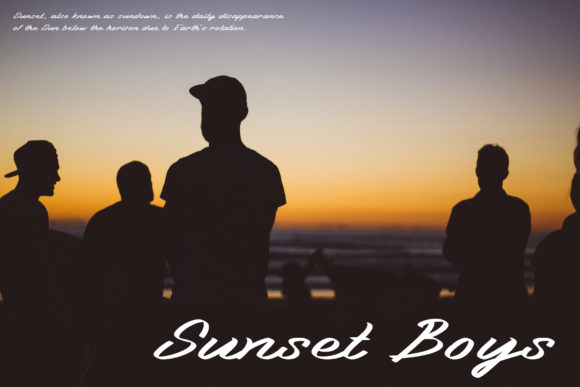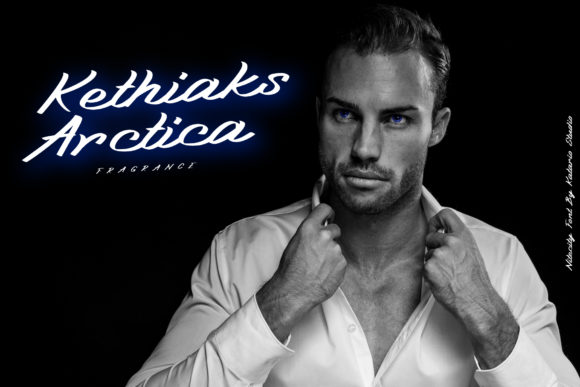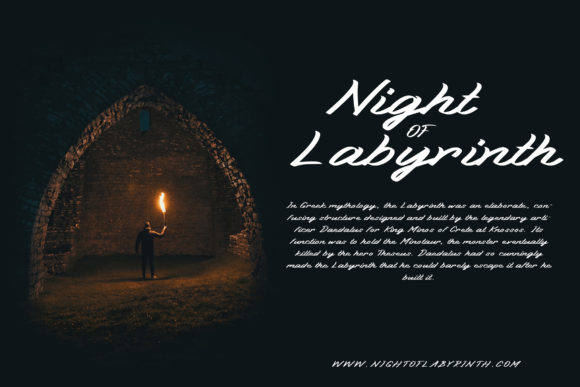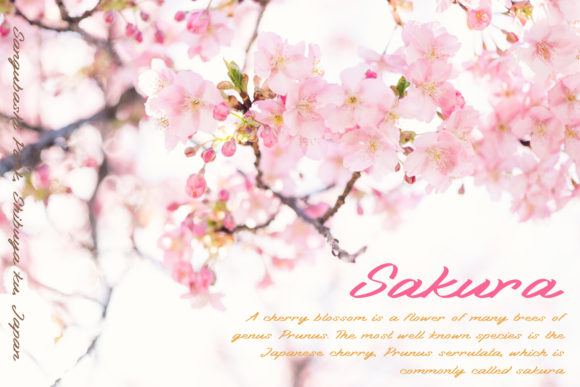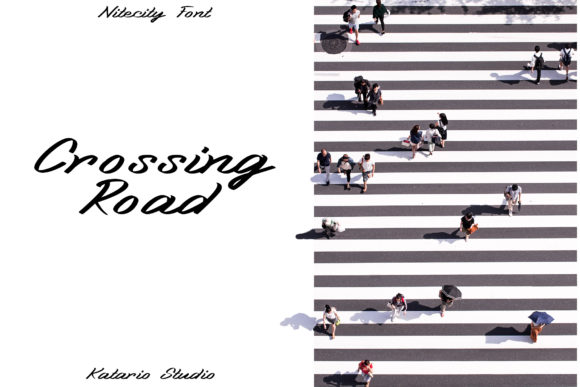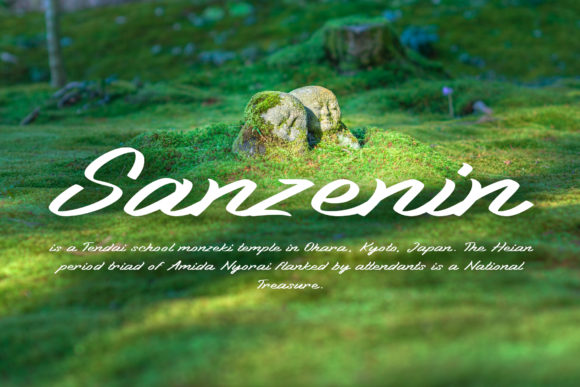
Introduction to Nitecity Font
Nitecity is a bold and retro styled handwritten font.
This font reads as strong, confident, and dynamic and can add tons of nostalgic character to your designs .